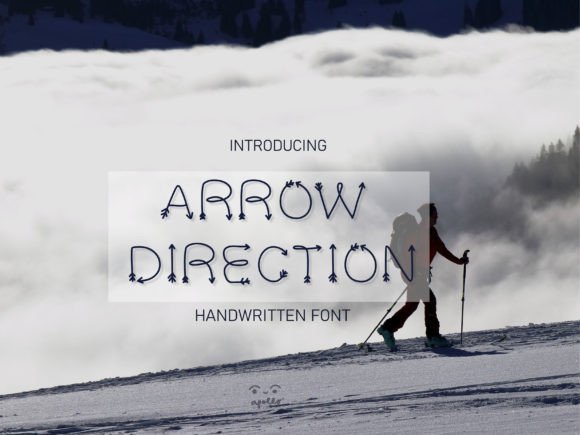
Introduction to Arrow Direction Font
Arrow Direction is a stylish and cool handwritten font.
Arrow Direction’s natural and unique style makes it incredibly fitting to a large pool of designs and traveling for direction on road The only limit is your imagination.
Arrow Direction Font offers exceptional quality and versatility, making it a valuable addition to your design toolkit. Whether you’re creating for personal projects or commercial use, Arrow Direction Font delivers professional results.